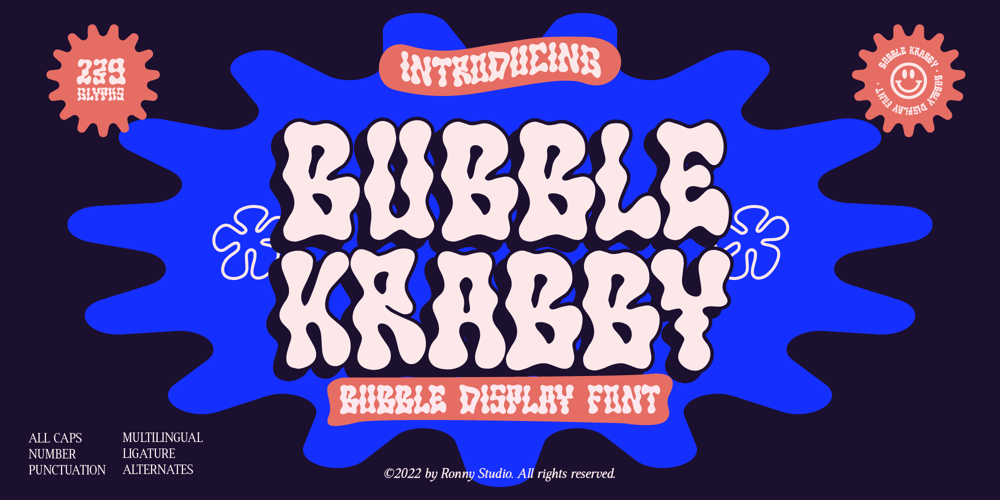
Bubble Krabby Font Family was designed by Rony Rizki Jaya and published by Ronny Studio. Bubble Krabby contains 2 styles and family package options. Bubble Krabby it’s retro, bold, and playful, really ties together your piece to give it that retro feel. This is font perfect for designers who are looking to add a psychedelic acid graphics contemporary hand-done touch to their projects. be it posters, magazines, Instagram, Logo, Game or branding.Features :- Lowercase & Uppercase ( All Caps )- numbers and punctuation- Alternate & Ligature- multilingual- PUA encodedPlease contact us if you have any questions. Enjoy Crafting and thanks for supporting us! :)Thank you